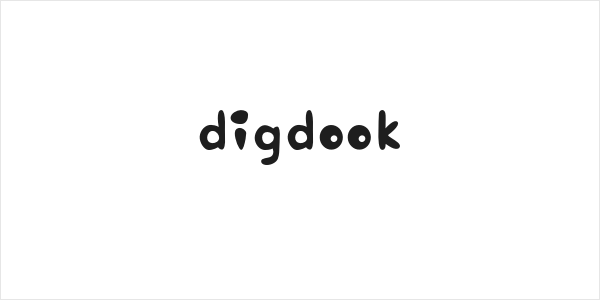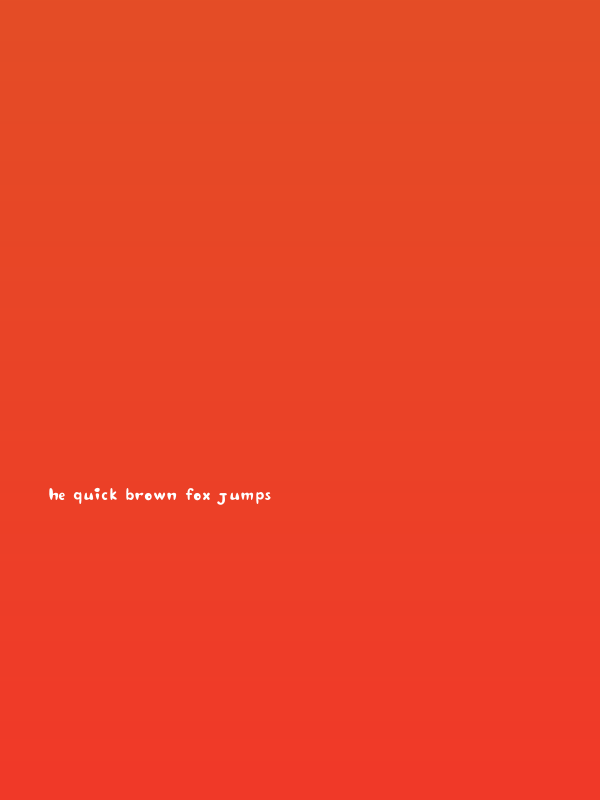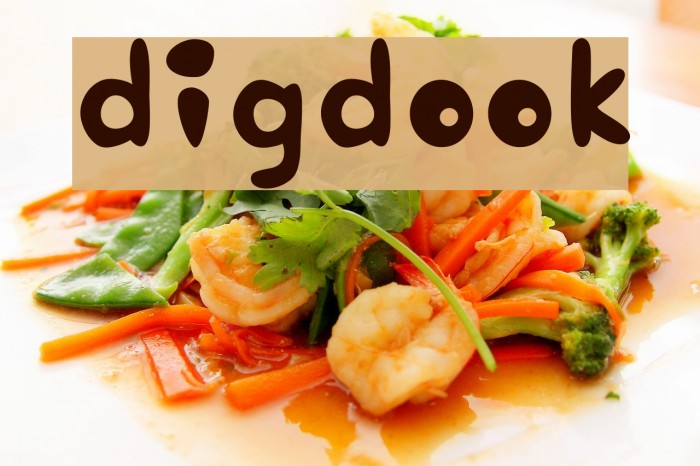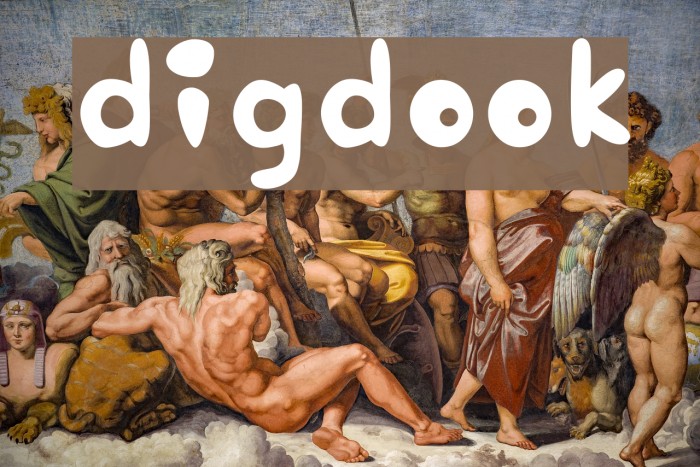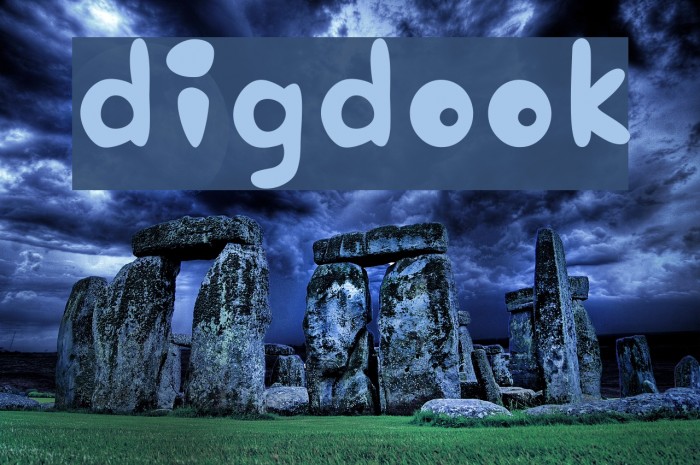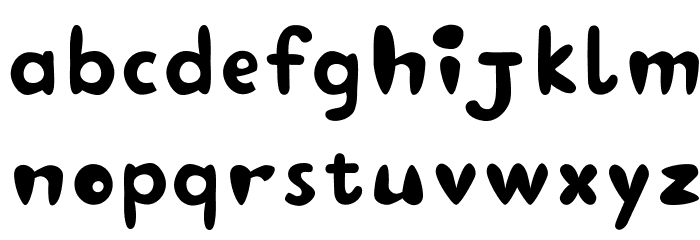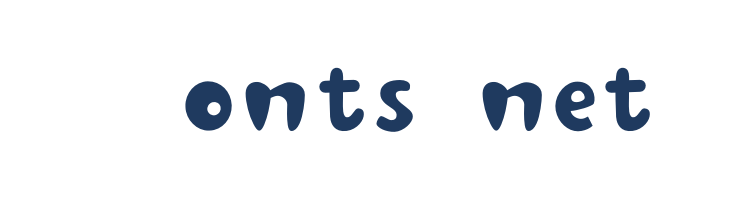
digdook Font
digdook Description
This playful and whimsical font features rounded, bubbly characters that convey a sense of fun and creativity. The lowercase letters have a unique, hand-drawn appearance with varying stroke thickness, adding to its charm. The font's informal style makes it perfect for projects that aim to be approachable and friendly. Its distinctive look is characterized by slightly exaggerated curves and a casual flow, making it stand out in any design. The overall appearance is both modern and quirky, appealing to audiences looking for something different and engaging.
| Overall Style | Whimsical, Playful |